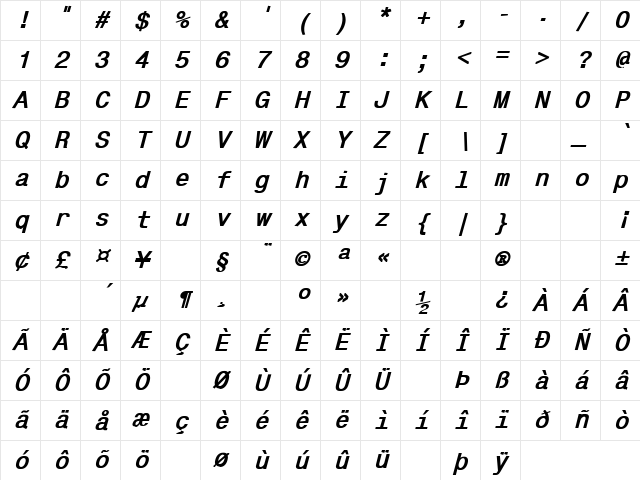
Gallows Pole 5 Bold Italic Free Font
Gallows Pole 5 Bold Italic
Design Context for Gallows Pole 5
Gallows Pole 5 is a composed and adaptable typeface that performs quietly and consistently across a wide range of design contexts. The slanted form adds forward momentum and visual energy. Its bold stroke weight gives it real presence on the page.
Pro Tip: Use Gallows Pole 5 for emphasis, pull quotes, and subheadings where its slanted energy can add rhythm to the layout.